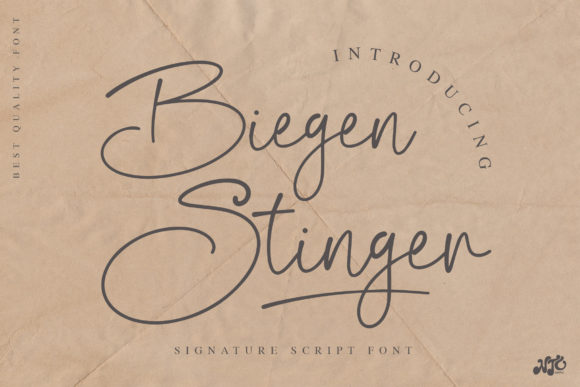
About Biegen Stinger Script Font
Biegen Stinger Script is a delicate, flowing and vintage styled handwritten font. It has a classy look that can be used for logos, branding, invitations, stationery, wedding designs, social media posts, and much more!